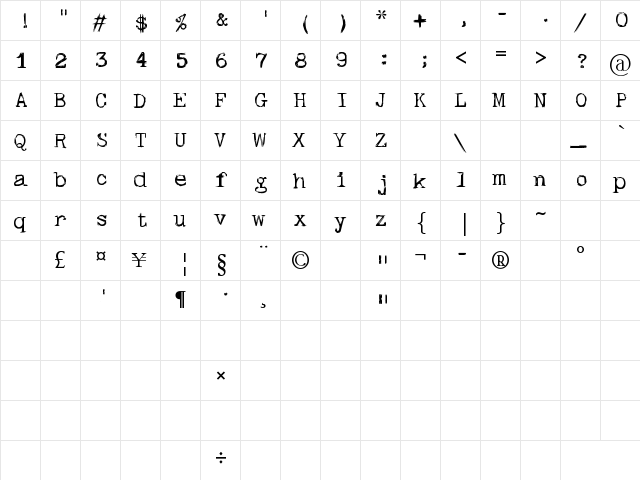
skullTypeWr00 Regular
Design Context for skullTypeWr00 Typeface
skullTypeWr00 takes a measured approach to typography — its balanced proportions and neutral character make it a reliable workhorse for both digital and print work.